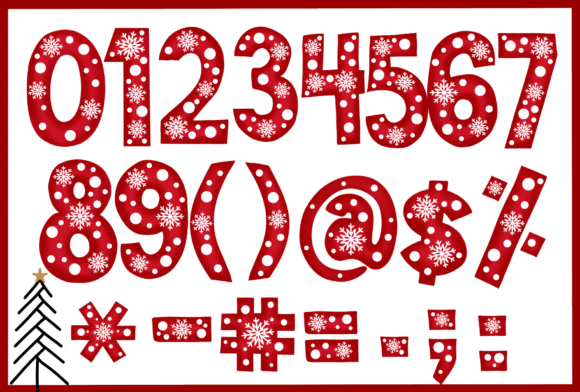
Santa Polka Dots Font
Santa Polka Dots is a festive and decorative font with holiday-themed designs. Each letter has a cheerful, Christmasy look, perfect for spreading holiday joy in cards, banners, and decorations!